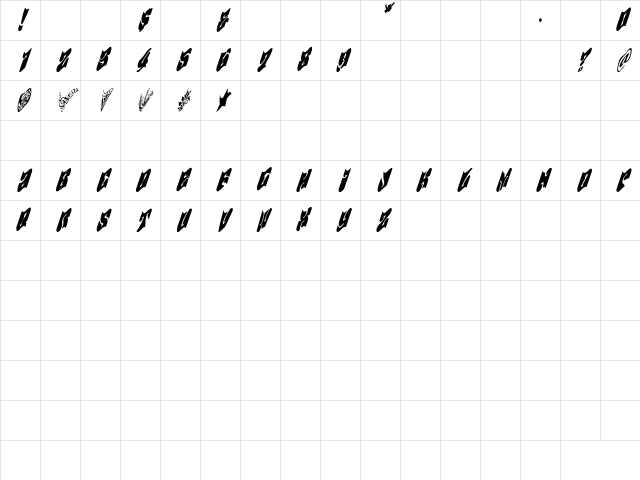
Complete DayTrippin Regular glyph index. Displaying only characters natively supported by DayTrippin Regular font.
DayTrippin is a composed and adaptable typeface that performs quietly and consistently across a wide range of design contexts.